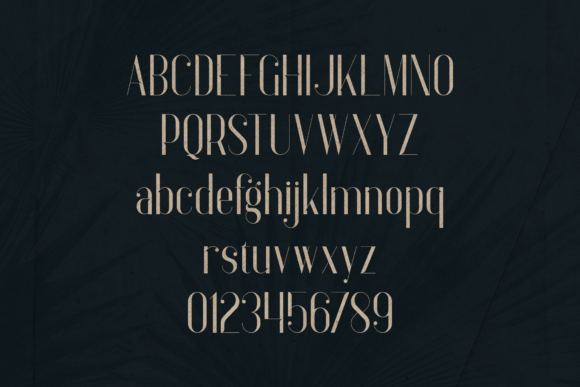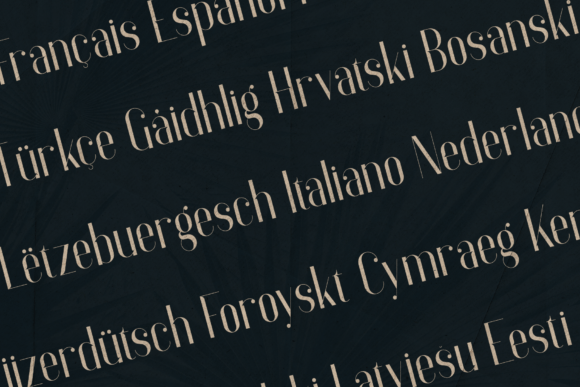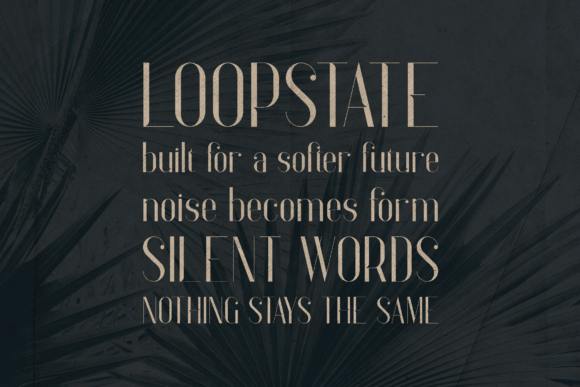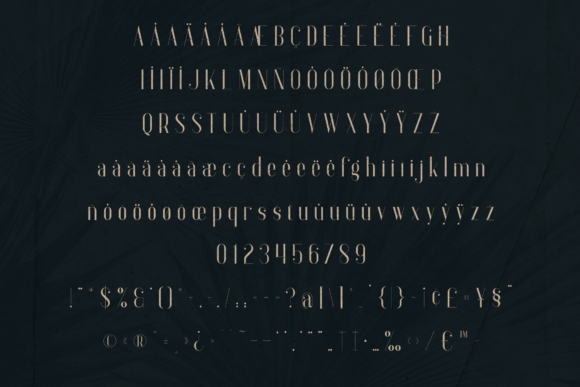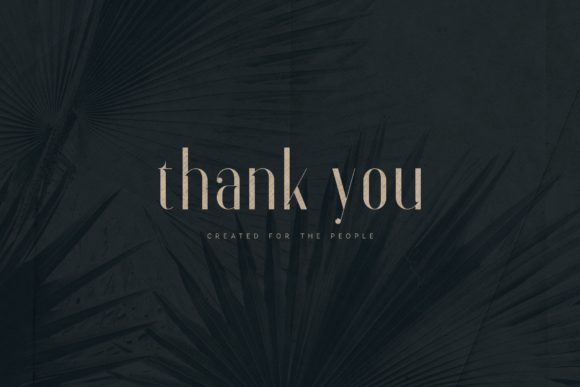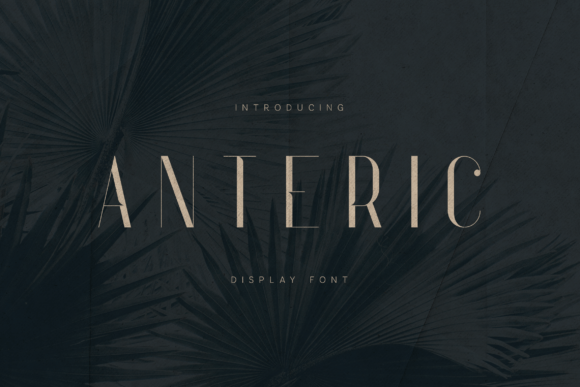
Introducing ANTERIC: A Refined Display Serif Font for Impact and Visual Storytelling
In the world of typography, fonts play a crucial role in conveying messages, evoking emotions, and creating a lasting impression. For designers and crafters seeking a bold yet elegant display serif font, ANTERIC is an exceptional choice. Crafted for impact, atmosphere, and visual storytelling, ANTERIC is a refined display serif font that delivers a commanding presence, perfect for headlines, posters, film titles, fashion editorials, luxury branding, album artwork, book covers, and statement typography.
Key Features of ANTERIC
ANTERIC boasts several distinctive features that set it apart from other display serif fonts. Its tall letterforms, sharp details, and elegant contrast create a dramatic rhythm that feels cinematic, premium, and intentional. The elongated structure and sculpted forms of ANTERIC evoke a sense of sophistication and refinement, making it an ideal choice for designers seeking to create a bold yet controlled presence.
Crafted for Impact and Atmosphere
ANTERIC is designed to command attention, making it perfect for applications where mood and character matter more than neutrality. Its bold yet refined nature allows it to excel in large sizes, where its display nature truly shines. Whether you’re creating a film title, luxury brand logo, or statement typography, ANTERIC is built to stand confidently and make a lasting impression.
Versatility and Pairing Options
ANTERIC’s versatility is another one of its key strengths. It can be paired with a minimal serif or clean sans serif font to create striking, high-end compositions. This allows designers to experiment with different typography combinations, ensuring that their work stands out from the crowd. For those seeking a display serif that feels elegant, dark, and powerful without being excessive, ANTERIC offers bold typography with refined restraint.
Applications for ANTERIC
ANTERIC’s impressive feature set and versatility make it suitable for a wide range of applications, including:
- Headlines and titles: ANTERIC’s bold and elegant nature makes it perfect for grabbing attention and creating a lasting impression.
- Posters and flyers: ANTERIC’s cinematic feel and dramatic rhythm make it ideal for posters and flyers seeking to evoke an emotional response.
- Film titles and movie posters: ANTERIC’s refined and sophisticated nature makes it a great choice for film titles and movie posters.
- Fashion editorials and luxury branding: ANTERIC’s elegant and premium feel make it perfect for fashion editorials and luxury branding.
- Album artwork and book covers: ANTERIC’s bold and refined nature make it suitable for album artwork and book covers seeking to make a statement.
Why Choose ANTERIC?
ANTERIC offers several advantages for designers and crafters seeking a refined display serif font. Its unique combination of boldness and elegance, paired with its versatility and refined restraint, make it an exceptional choice for a wide range of applications. By choosing ANTERIC, designers can:
- Create a lasting impression with bold and elegant typography.
- Evoke emotions and convey messages with a refined and sophisticated font.
- Experiment with different typography combinations for striking, high-end compositions.
ANTERIC is a refined display serif font that delivers a bold yet controlled presence, perfect for designers and crafters seeking to make a lasting impression. With its tall letterforms, sharp details, and elegant contrast, ANTERIC excels in a wide range of applications, from headlines and posters to film titles and luxury branding. Its versatility, paired with its refined restraint, make it an exceptional choice for those seeking a display serif that feels elegant, dark, and powerful without being excessive.